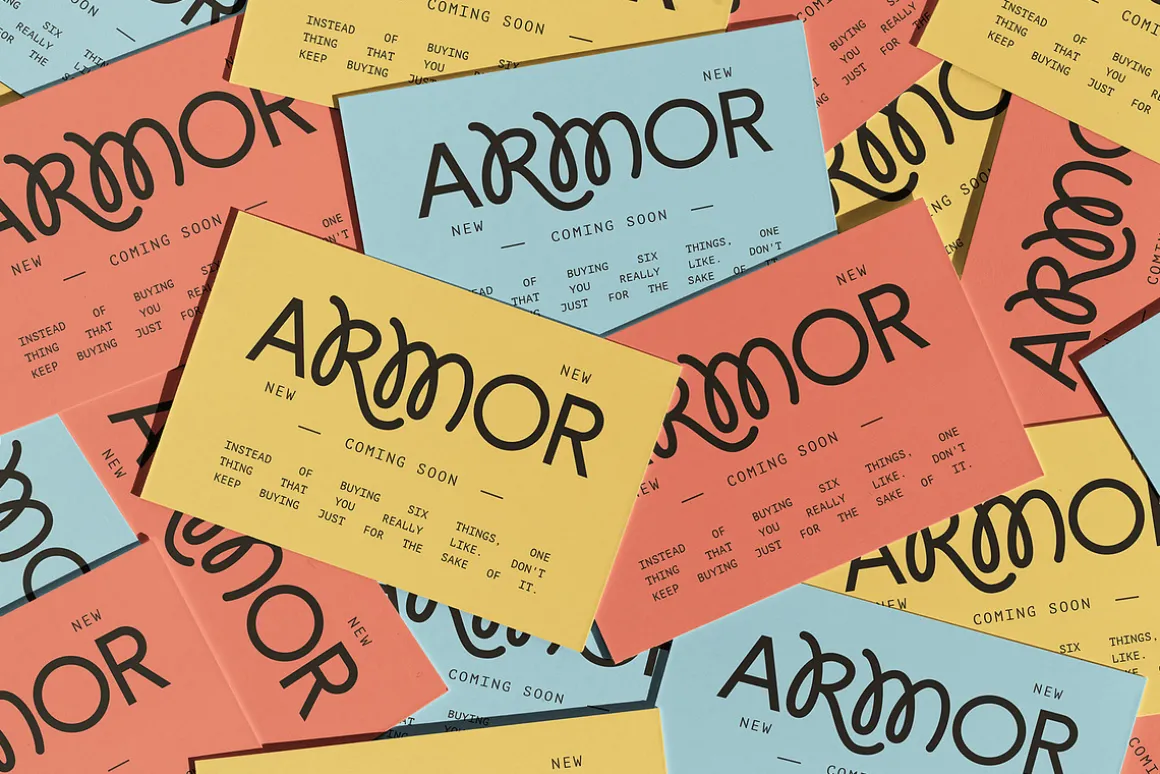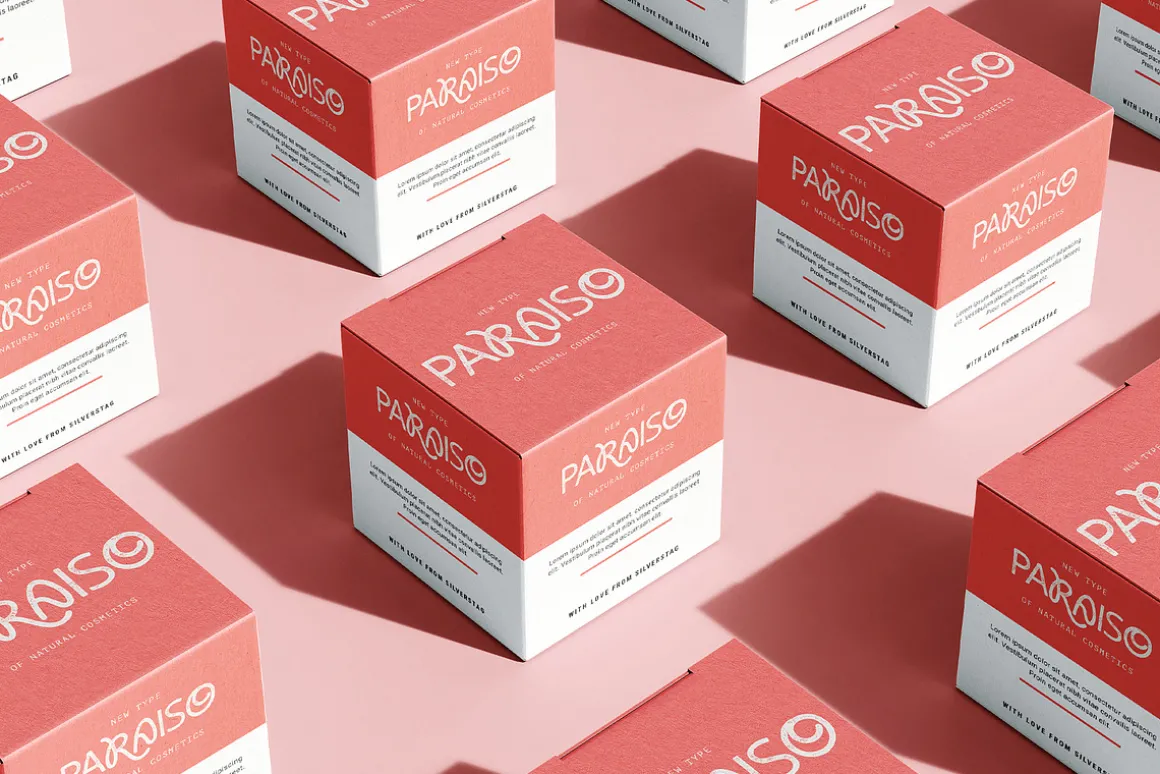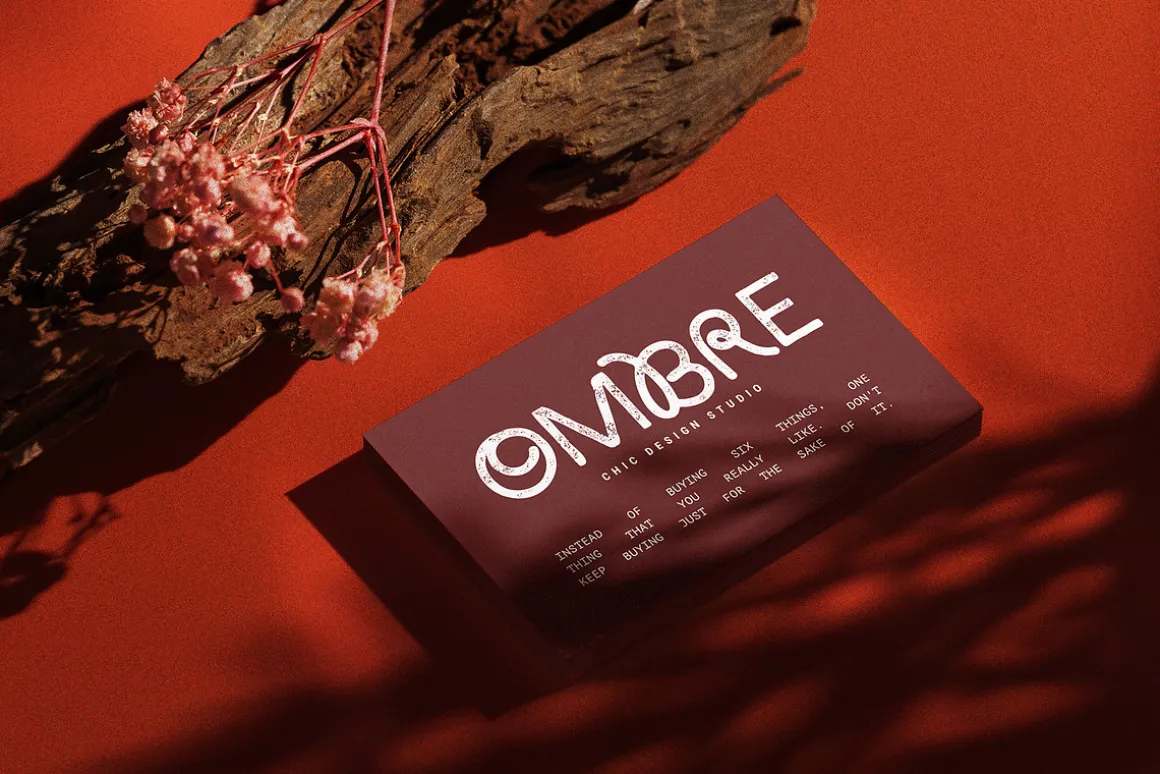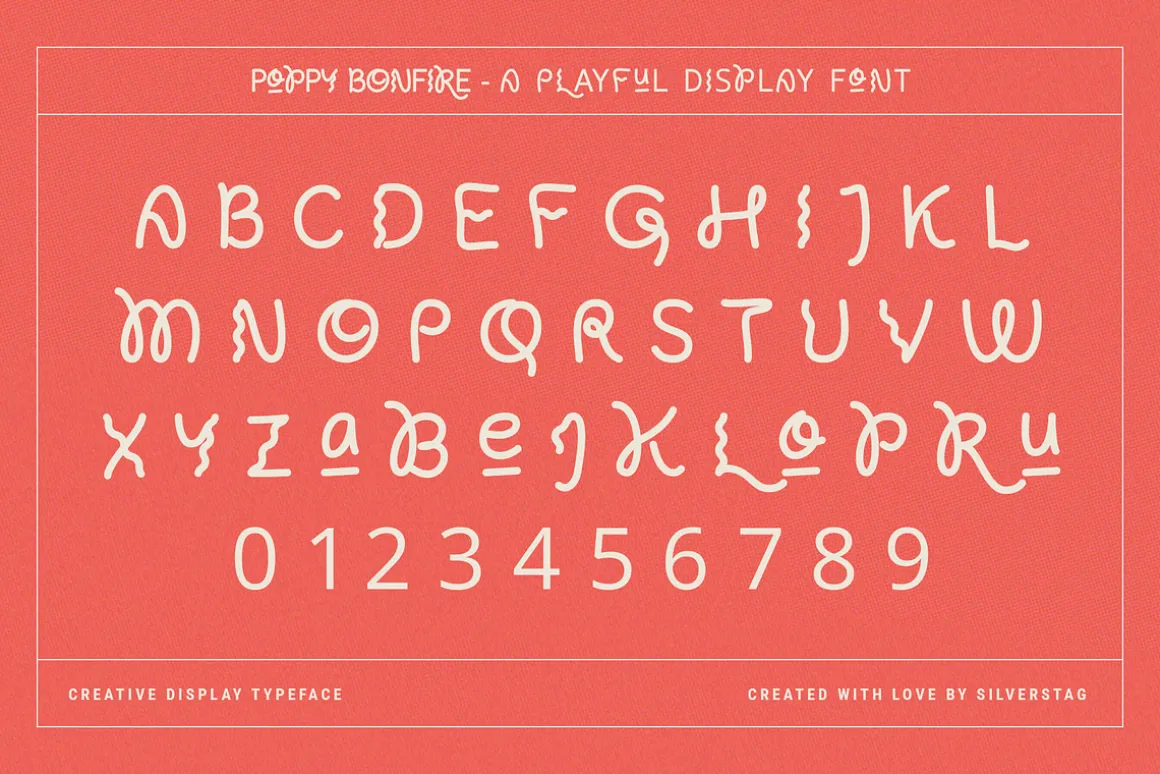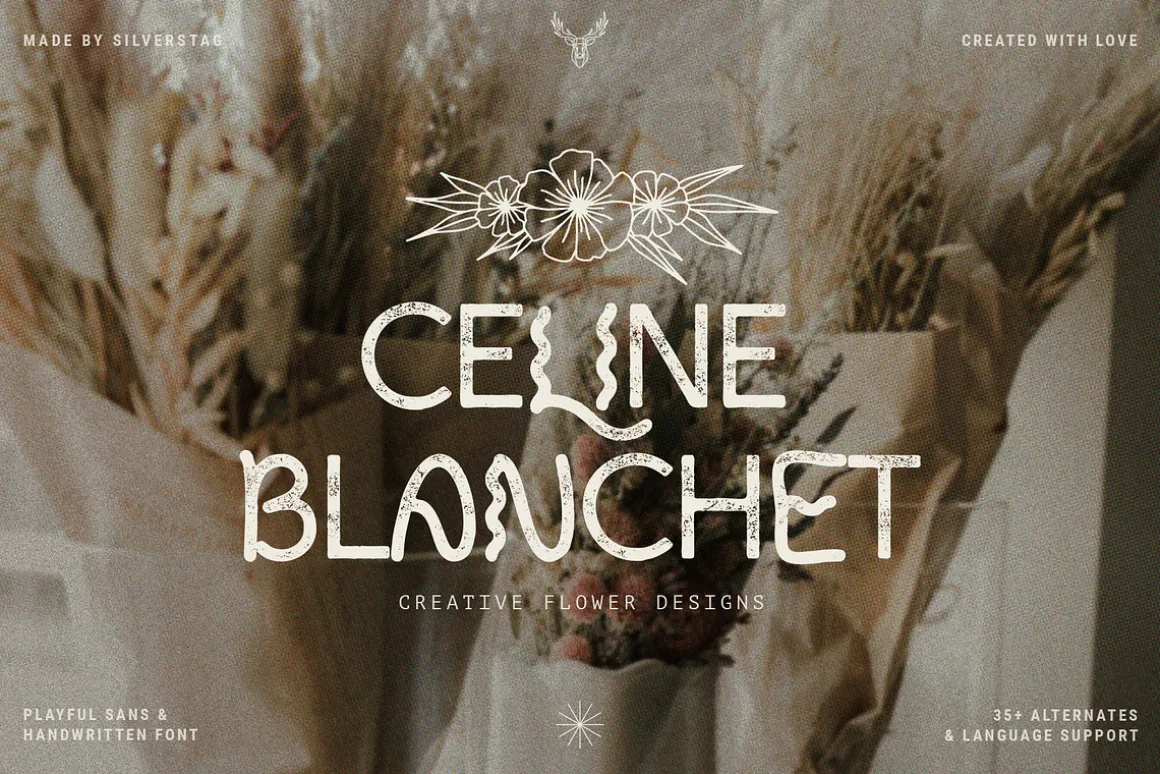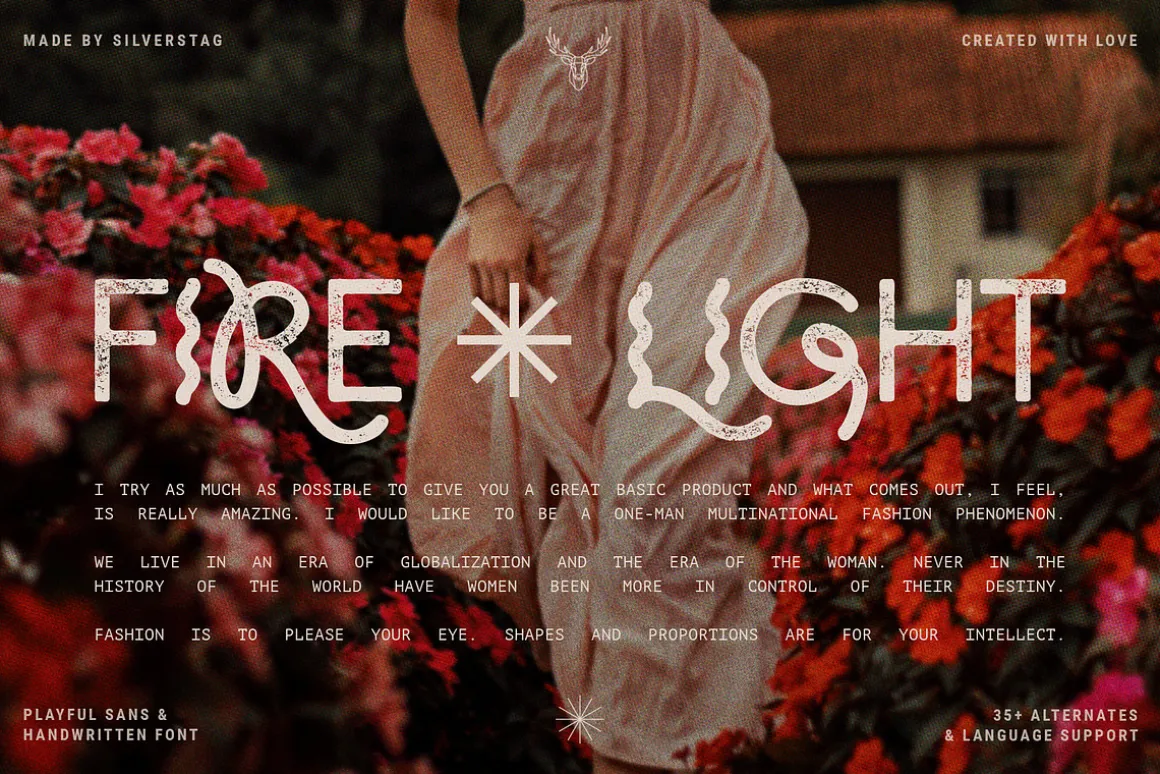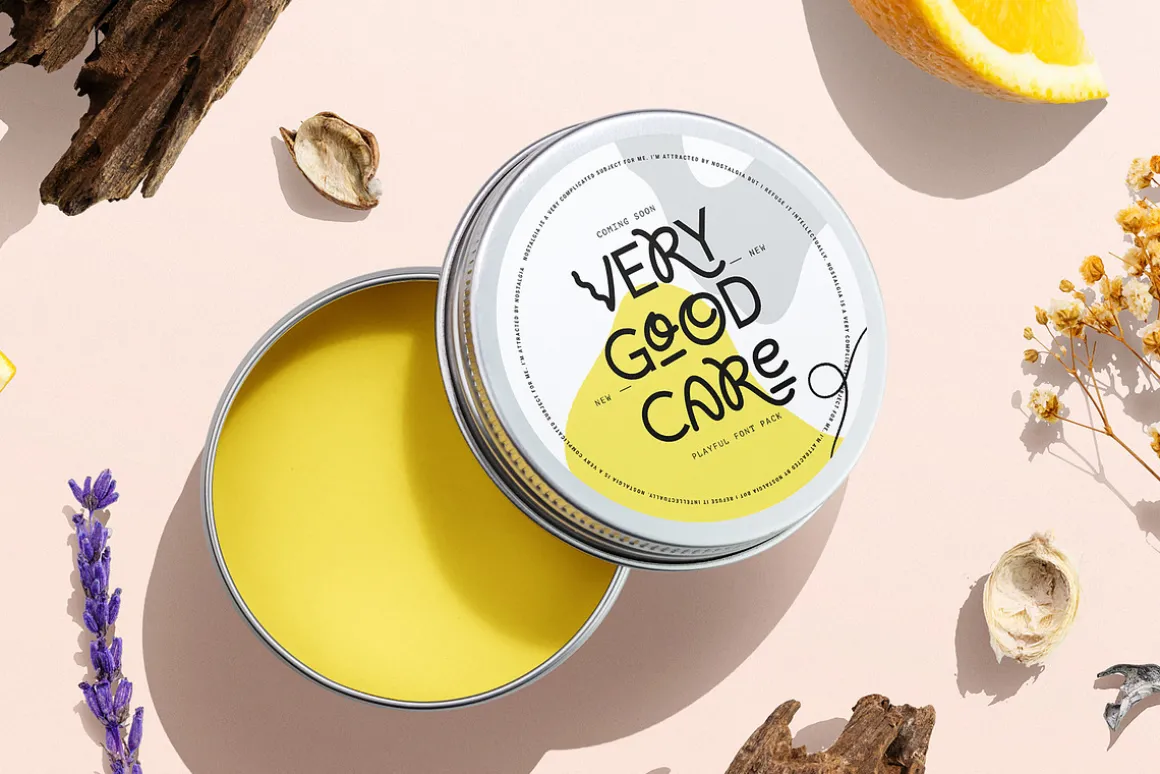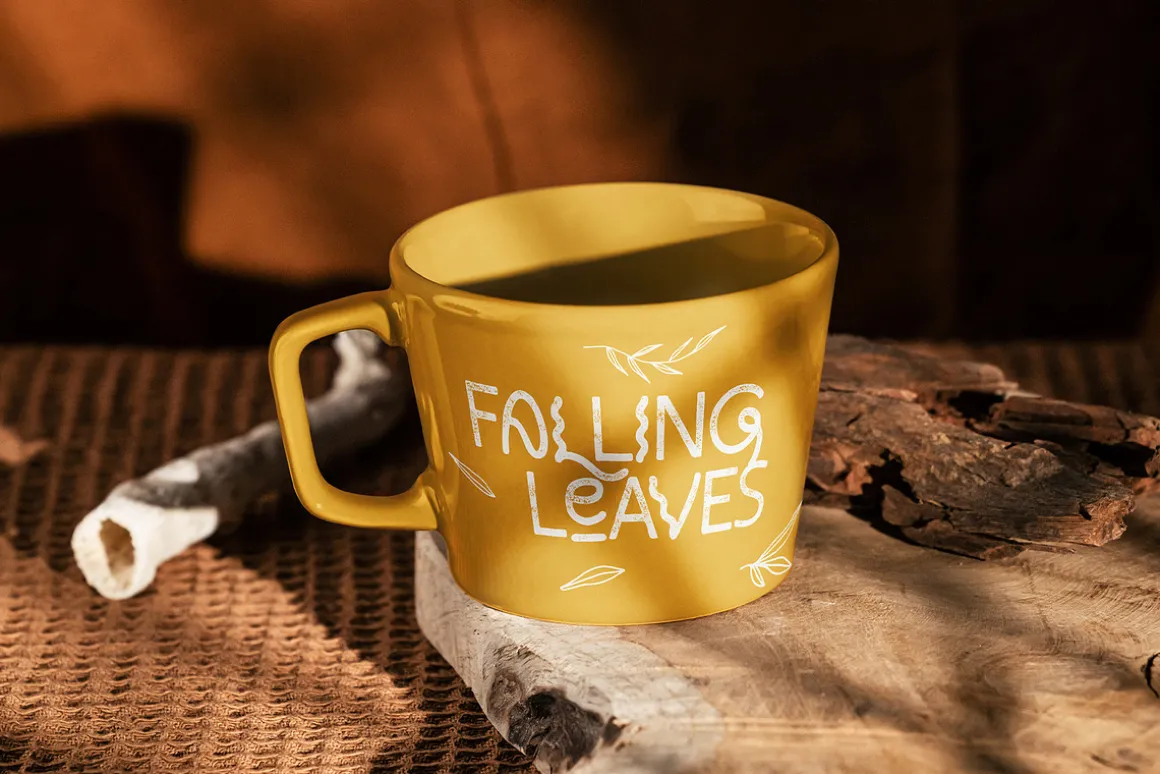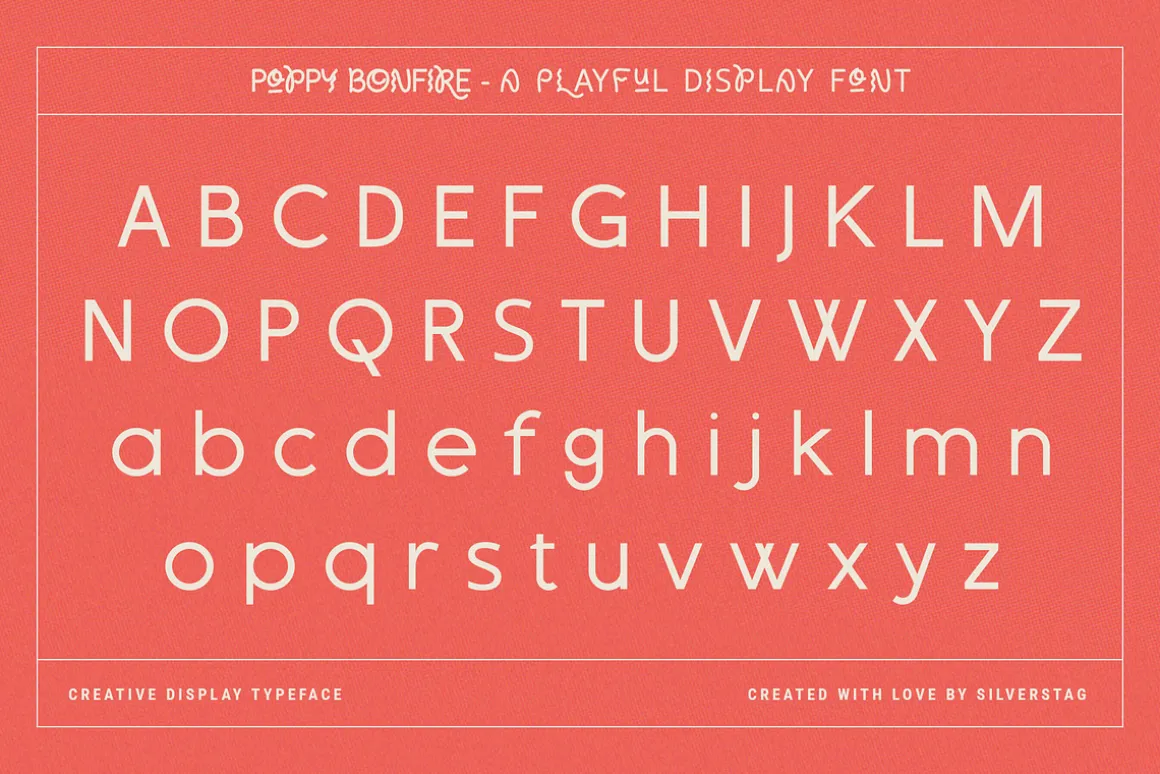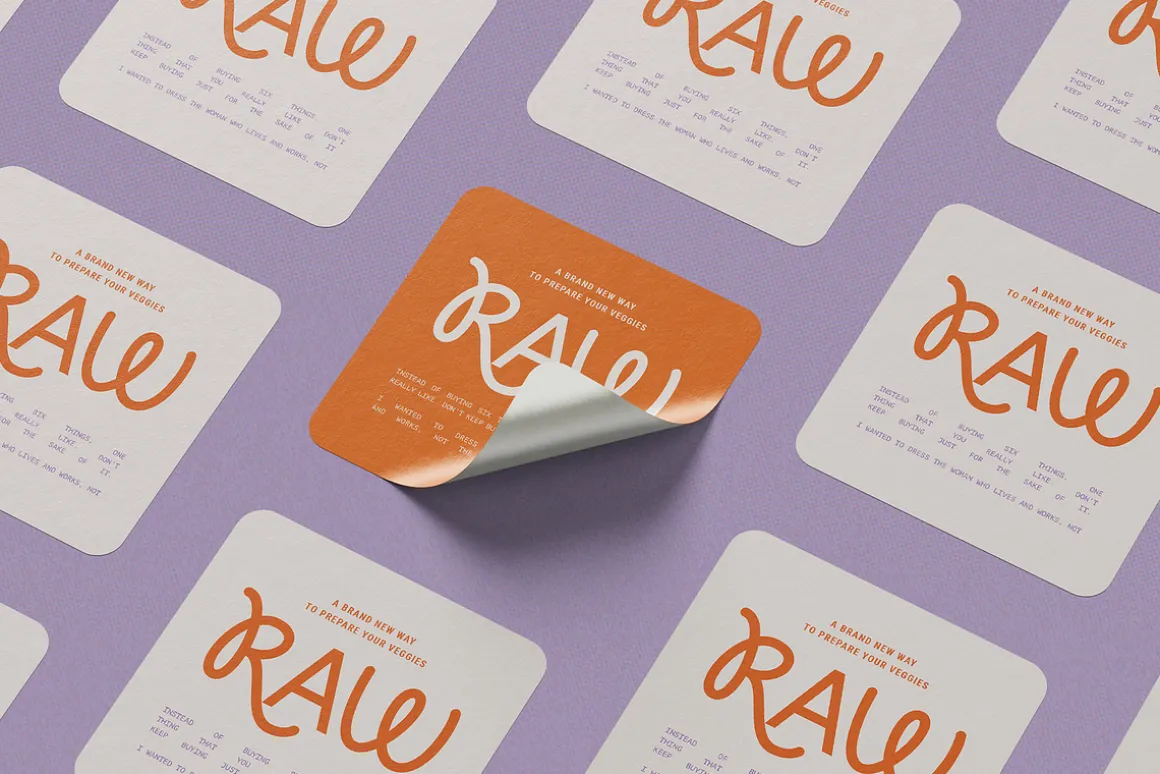
Inspired by the new color of the season, Poppy Bonfire is my take on a super playful, 100% unique display font! It has over 35 alternate letters so you can play with it and get the look you need. The font family includes three font options – Regular, Outline & Vintage! And whether you have a client that needs a new quote design, or a social media post, it’s perfect for you. Check out the photos I have prepared for you to see what you can do with it and happy creating!
This font pack also includes full language support, punctuation, numerals and detailed instructions how to use alternate letters most of the apps on your computer, as well as in Canva. And it also comes in three versions: vintage, solid & outline!
I invite you to check out the preview images, and I hope you will be immersed in my vision for this creative typeface that, I am sure, will work for all kinds of interesting projects you might be working on this year.
Poppy Bonfire – Modern Display Font:
- Over 35 Alternate Letters
- Numerals & Punctuation
- Language Support